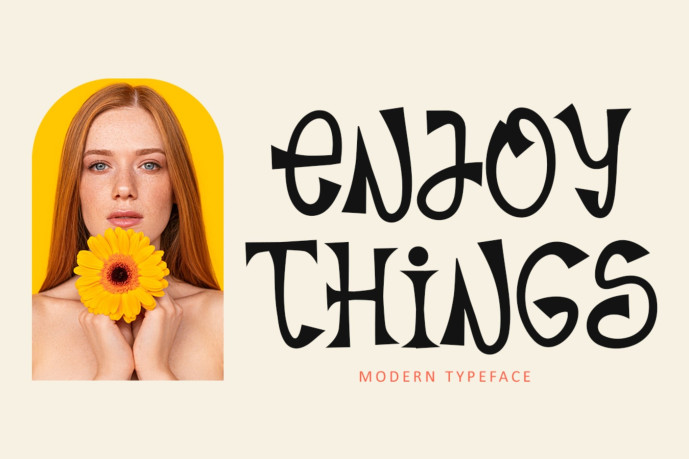
Enjoy Things Font
Designer: illushvara
Enjoy Things Font offers beautiful typographic harmony for a diversity of design projects, including logos & branding, social media posts, advertisements & product designs.